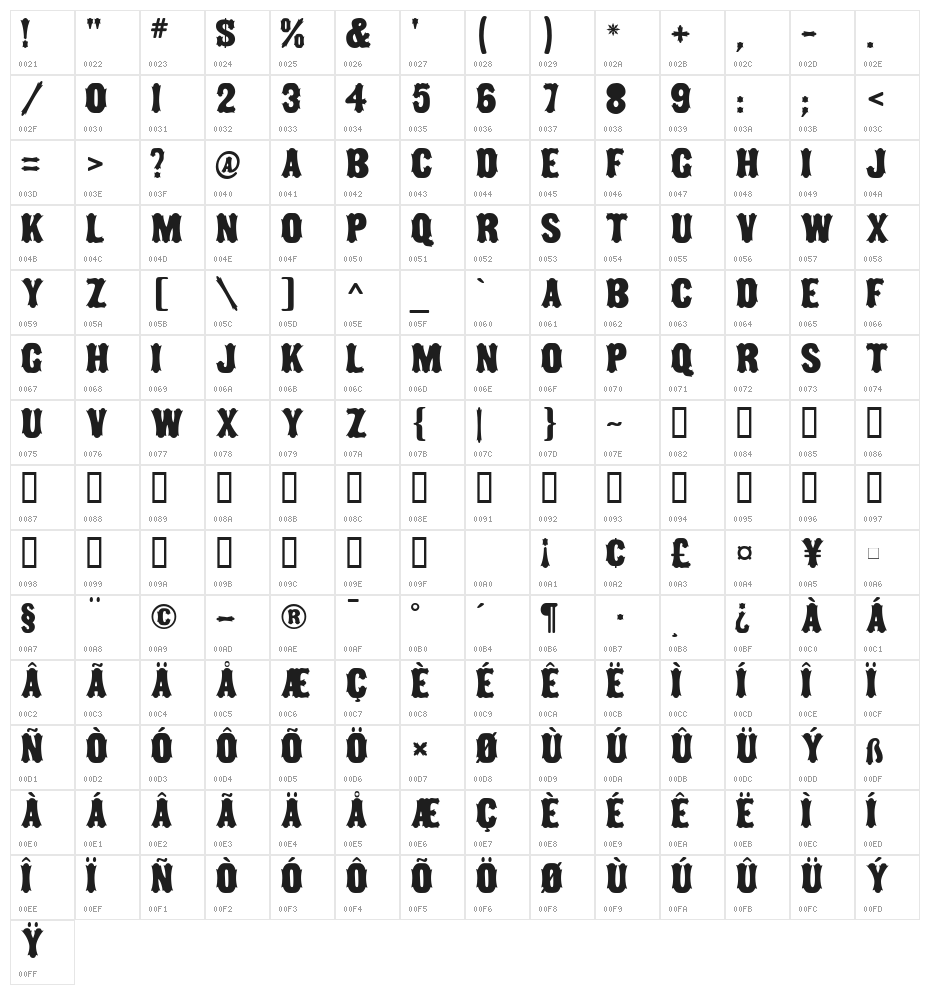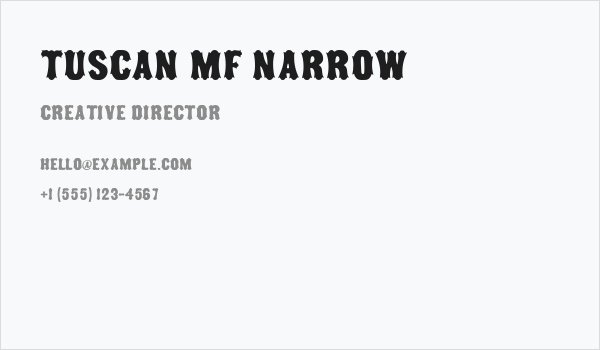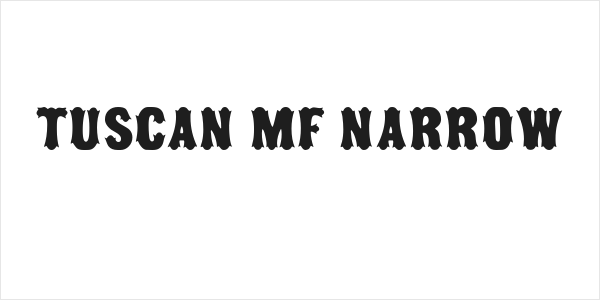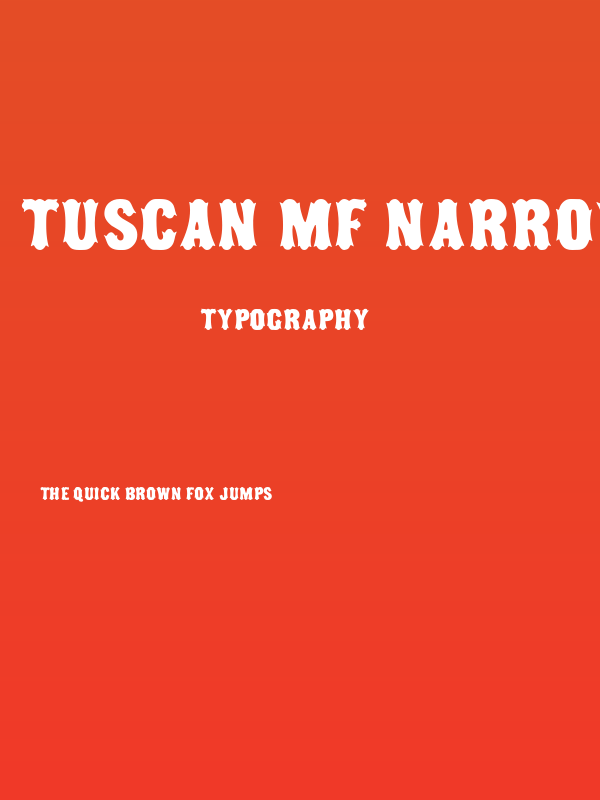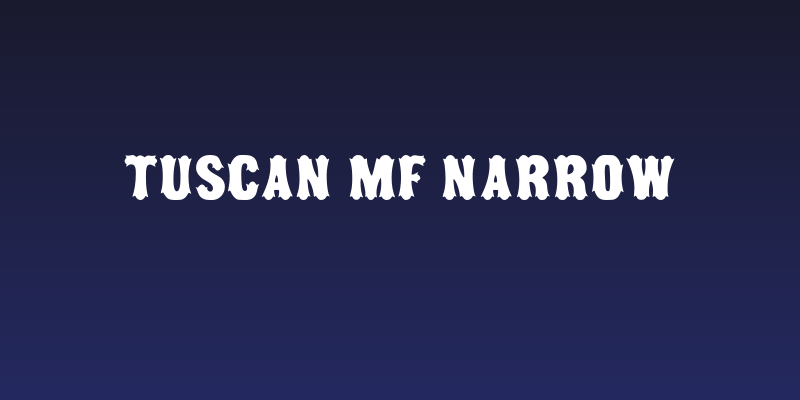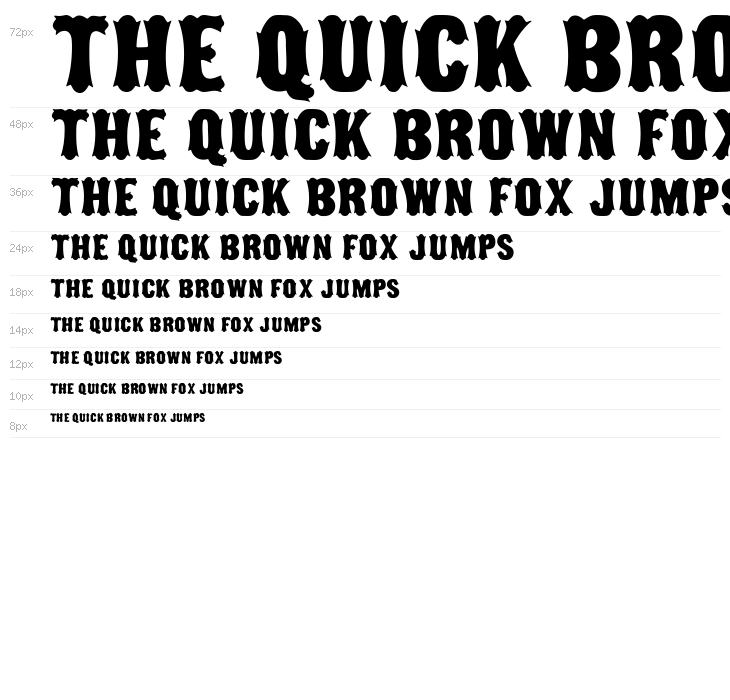
Tuscan MF Narrow Font
Tuscan MF Narrow Description
This font features a bold and decorative style with a distinct vintage flair. The characters are designed with unique, ornate serifs and a slightly condensed form, giving them a strong and impactful presence. The uppercase and lowercase letters maintain a consistent style, with exaggerated curves and flourishes that add to the font's decorative appeal. The numbers and special characters are equally stylized, ensuring a cohesive look across all elements. The overall design is reminiscent of old Western or circus posters, making it ideal for projects that require a touch of nostalgia and boldness.
| Proposed Projects | Ideal for vintage-themed posters, logos, signage, and branding projects that require a bold, decorative touch. |